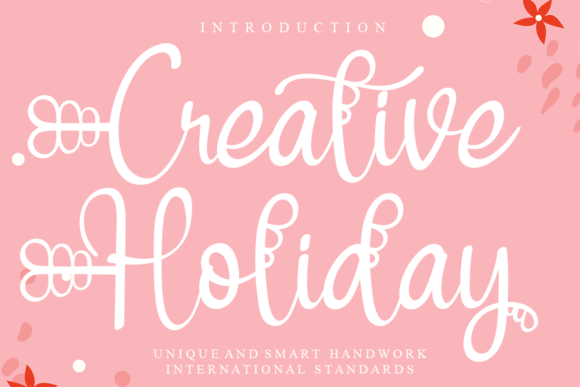
Introducing Creative Holiday Font: Add a Joyful Touch to Your Designs
Are you looking for a font that can bring a playful and joyful vibe to your designs? Look no further than the Creative Holiday Font! This adorable, quirky handwritten font is perfect for designers and crafters who want to add a touch of whimsy to their work. In this article, we’ll dive into the features and benefits of the Creative Holiday Font, and explore how you can use it to create stunning designs.
What is Creative Holiday Font?
Creative Holiday Font is a unique and charming handwritten font that is sure to capture the hearts of designers and crafters alike. Its playful style is perfect for creating beautiful stationery art, eye-catching social media posts, and much more. With its quirky and adorable design, this font is sure to add a joyful touch to any project.
Key Features of Creative Holiday Font
- Playful and Whimsical Design: The Creative Holiday Font features a playful and whimsical design that is sure to bring a smile to your face. Its quirky style is perfect for creating designs that are fun and engaging.
- Handwritten Style: This font features a beautiful handwritten style that gives it a personal and unique touch. It’s perfect for creating designs that feel handmade and special.
- Versatile and Easy to Use: The Creative Holiday Font is incredibly versatile and easy to use. You can use it to create a wide range of designs, from stationery art to social media posts.
Benefits of Using Creative Holiday Font
So why should you use the Creative Holiday Font in your designs? Here are just a few benefits of using this amazing font:
- Adds a Joyful Touch: The Creative Holiday Font is sure to add a joyful touch to your designs. Its playful style is perfect for creating designs that are fun and engaging.
- Increases Engagement: The quirky and adorable design of the Creative Holiday Font is sure to grab the attention of your audience and increase engagement.
- Perfect for Seasonal Designs: The Creative Holiday Font is perfect for creating seasonal designs, such as holiday cards, Christmas decorations, and more.
How to Use Creative Holiday Font in Your Designs
Using the Creative Holiday Font in your designs is easy! Here are a few ideas to get you started:
- Stationery Art: Use the Creative Holiday Font to create beautiful stationery art, such as greeting cards, invitations, and more.
- Social Media Posts: Add a playful touch to your social media posts with the Creative Holiday Font. It’s perfect for creating eye-catching graphics and posts.
- Holiday Decorations: Use the Creative Holiday Font to create festive holiday decorations, such as Christmas ornaments, holiday banners, and more.
Tips and Tricks for Getting the Most Out of Creative Holiday Font
Here are a few tips and tricks for getting the most out of the Creative Holiday Font:
- Experiment with Different Colors: Don’t be afraid to experiment with different colors and color combinations when using the Creative Holiday Font.
- Pair with Other Fonts: Try pairing the Creative Holiday Font with other fonts to create a unique and interesting design.
- Use in Combination with Images: Use the Creative Holiday Font in combination with images to create a visually appealing design.
In conclusion, the Creative Holiday Font is a unique and charming handwritten font that is sure to add a joyful touch to your designs. With its playful style and versatile design, it’s perfect for creating a wide range of designs, from stationery art to social media posts. Whether you’re a designer or crafter, the Creative Holiday Font is sure to become a favorite in your collection.